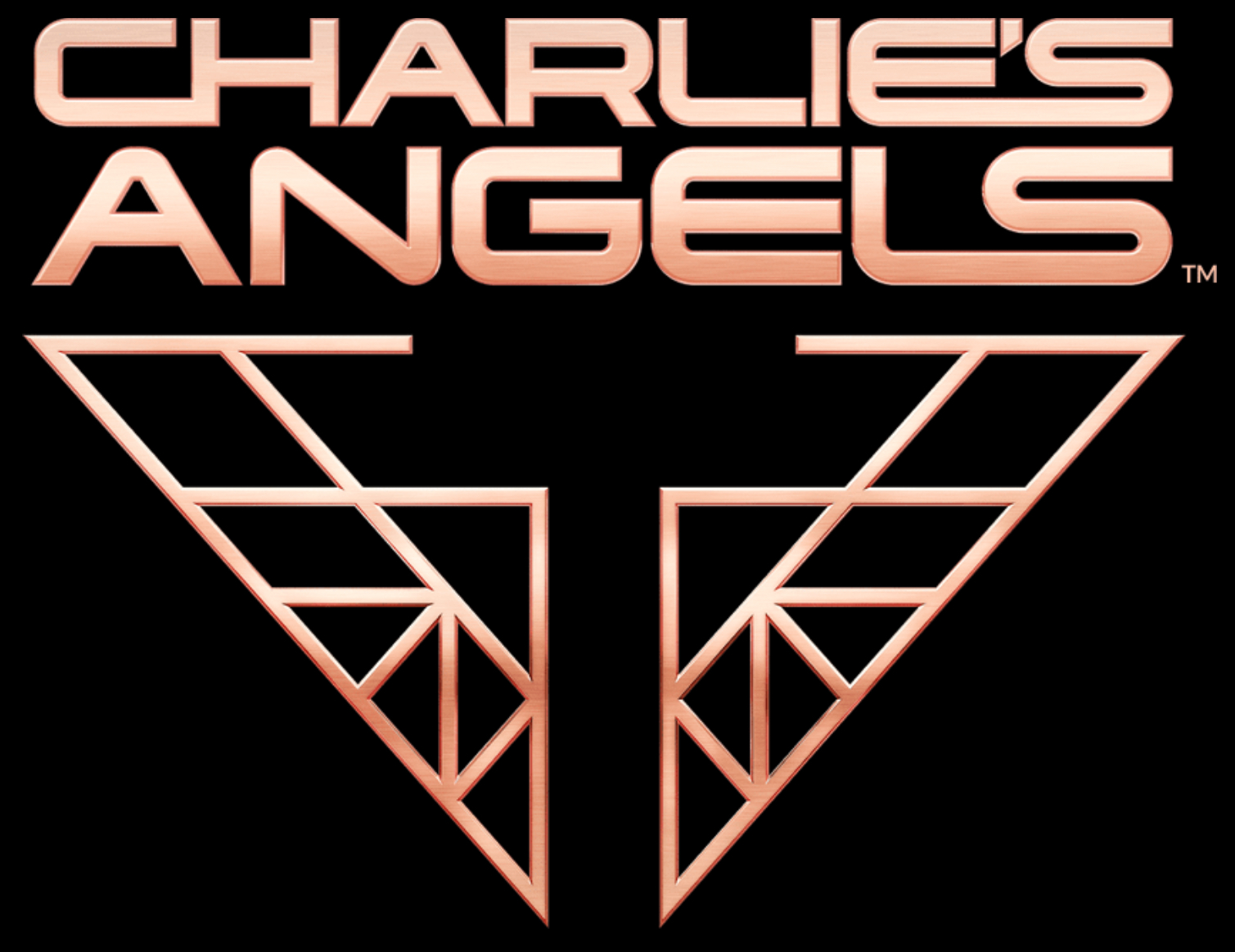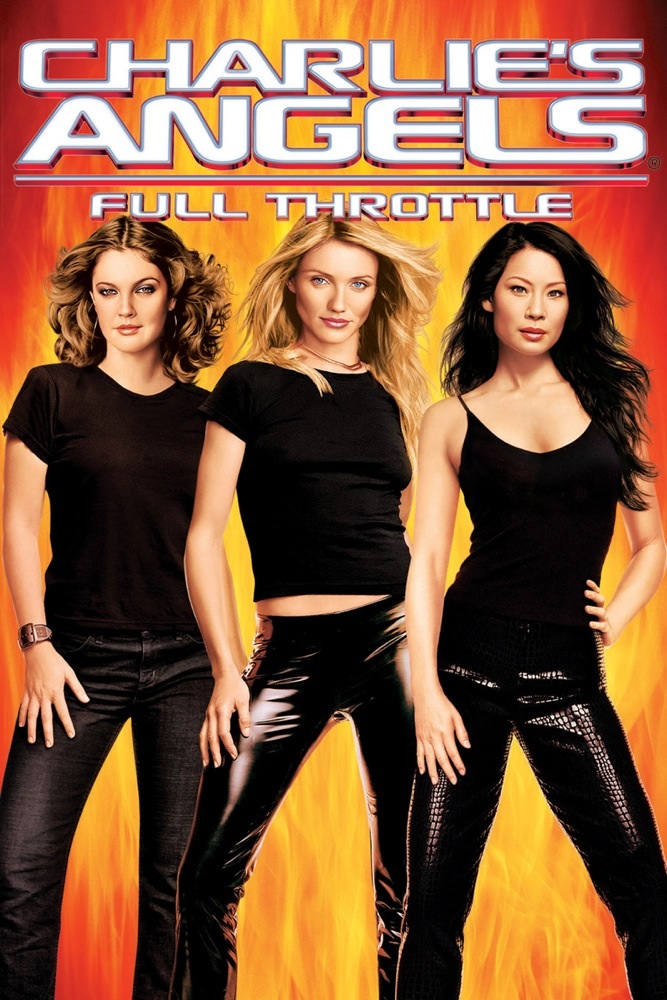
Charlies Angels Font
Charlies Angels Font - Web charlie’s angels is an american crime drama television series that was first released on 22 september 1976. The lee bold font is. Web may 26, 2023 by david egee. The charlies angels font is an iconic and instantly recognizable typeface that has become. Last edit on oct 11, 2019 at 02:16 by frd.